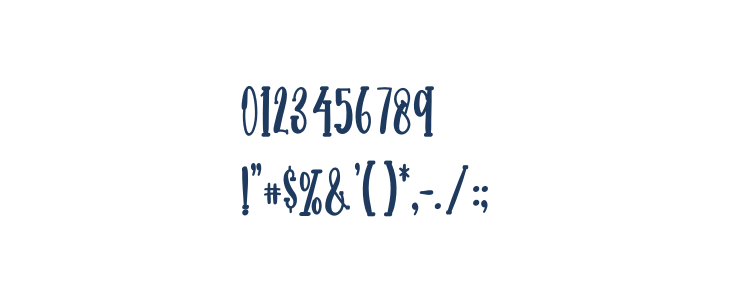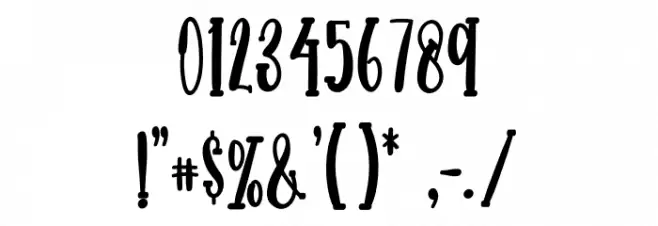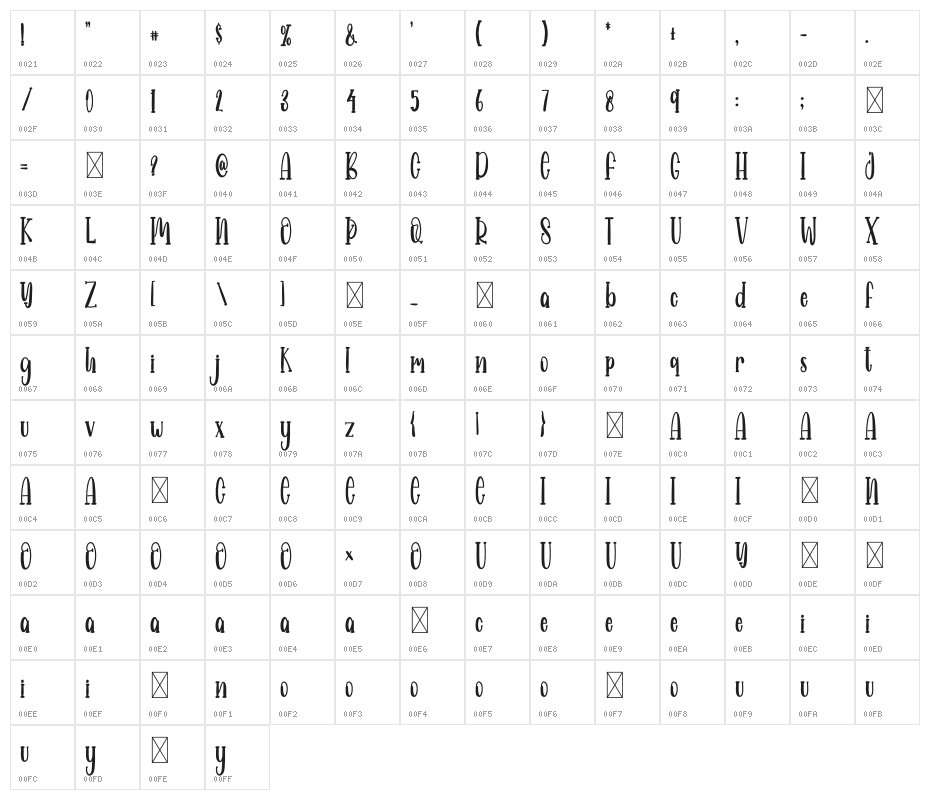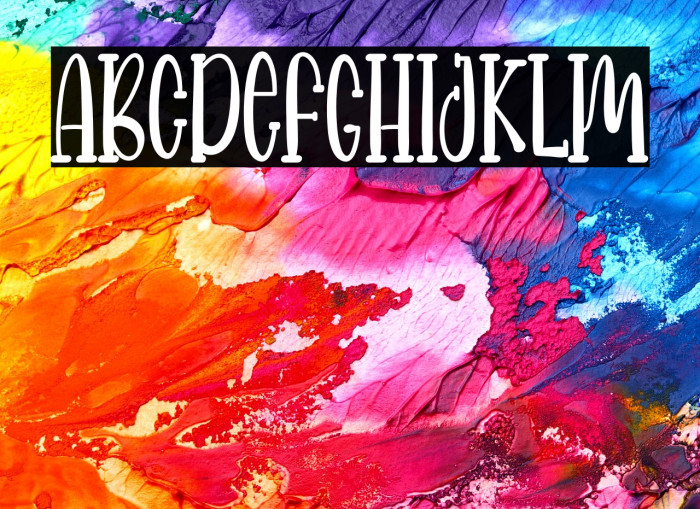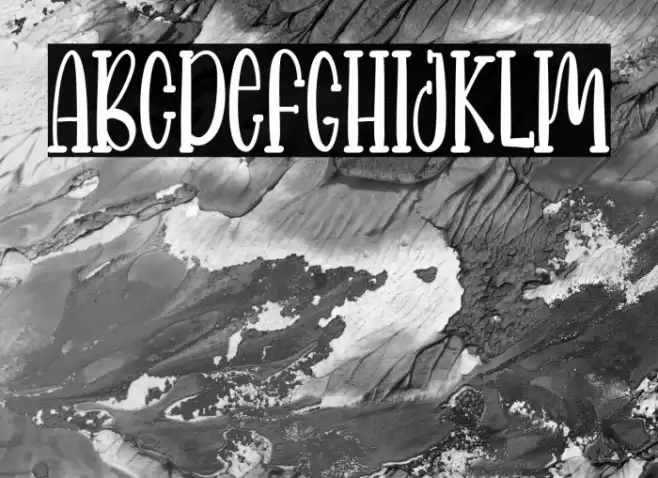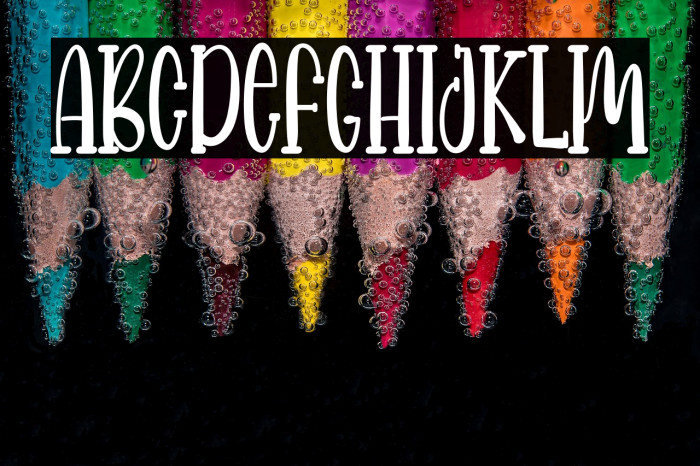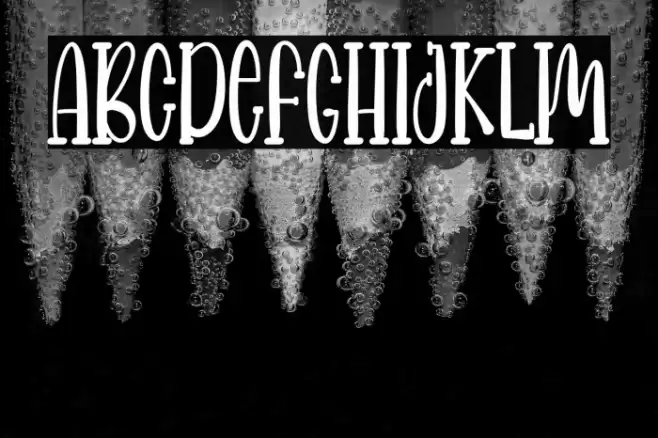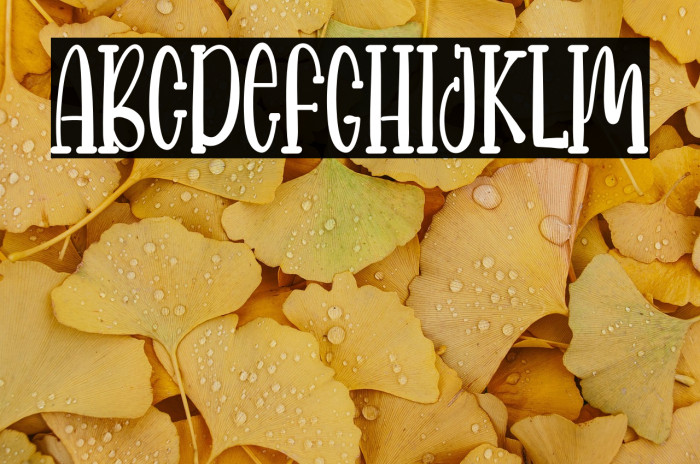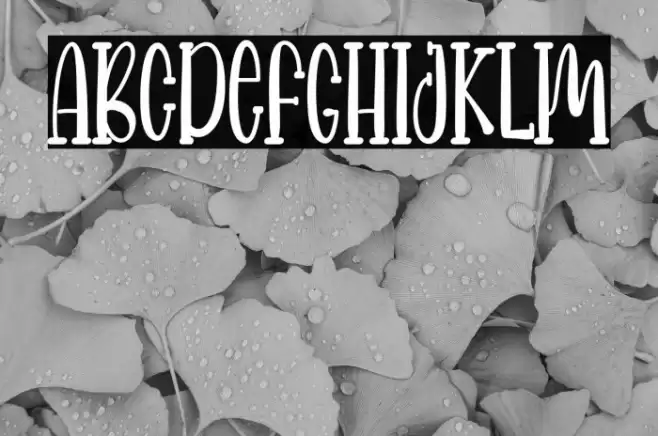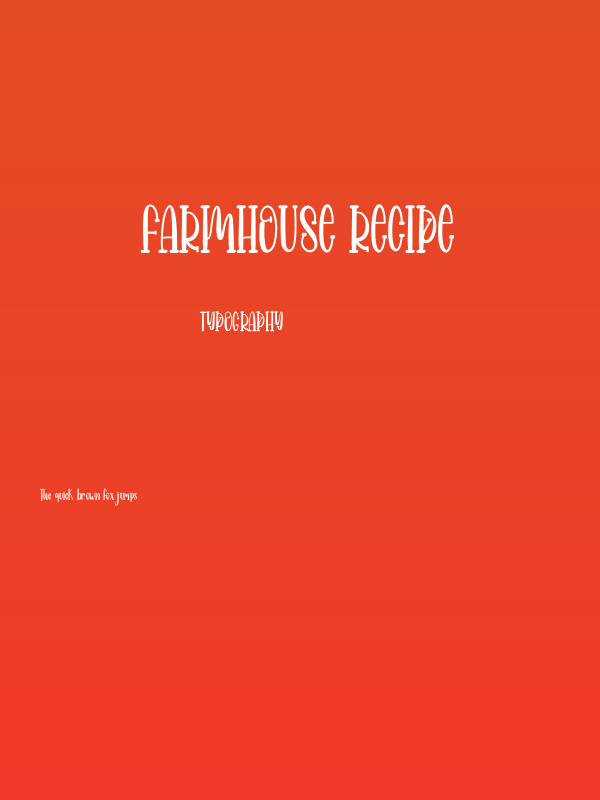
FARMHOUSE RECIPE Font
FARMHOUSE RECIPE Description
This font exudes a charming, rustic appeal with its hand-drawn, playful style. The letters are characterized by their tall, narrow forms and whimsical curves, giving them a unique, handcrafted look. The uppercase letters stand out with their bold presence, while the lowercase letters maintain a consistent flow with slightly exaggerated ascenders and descenders. The numbers and special characters complement the alphabet with similar stylistic elements, ensuring a cohesive appearance. This font's distinctive personality makes it ideal for projects that require a touch of warmth and creativity.
| Use Case | Headlines, Logos, Decorative text |
| Proposed Projects | Perfect for farmhouse decor, recipe books, greeting cards, and DIY crafts. |